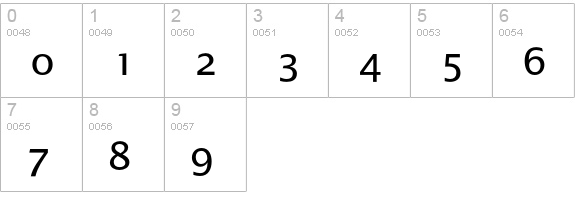
Alphabet2-Regular Font Details
Alphabet2-Regular is the standard, neutral variant in the Alphabet2 typeface family \xE2\x80\x94 well suited to general body text, paragraphs, and standard typographic work.
Alphabet2-Regular font is a stylish and versatile typeface that exudes modern elegance and sophistication. With its clean lines and balanced proportions, this font is perfect for a wide range of design projects, from branding to editorial design. The Alphabet2-Regular font features a full character set with uppercase and lowercase letters, numbers, and punctuation marks, making it a versatile choice for both print and digital applications. The best part? Alphabet2-Regular font is available for free download at FontsMarket.com. So go ahead and elevate your designs with this beautiful and timeless typeface that will surely make a statement.